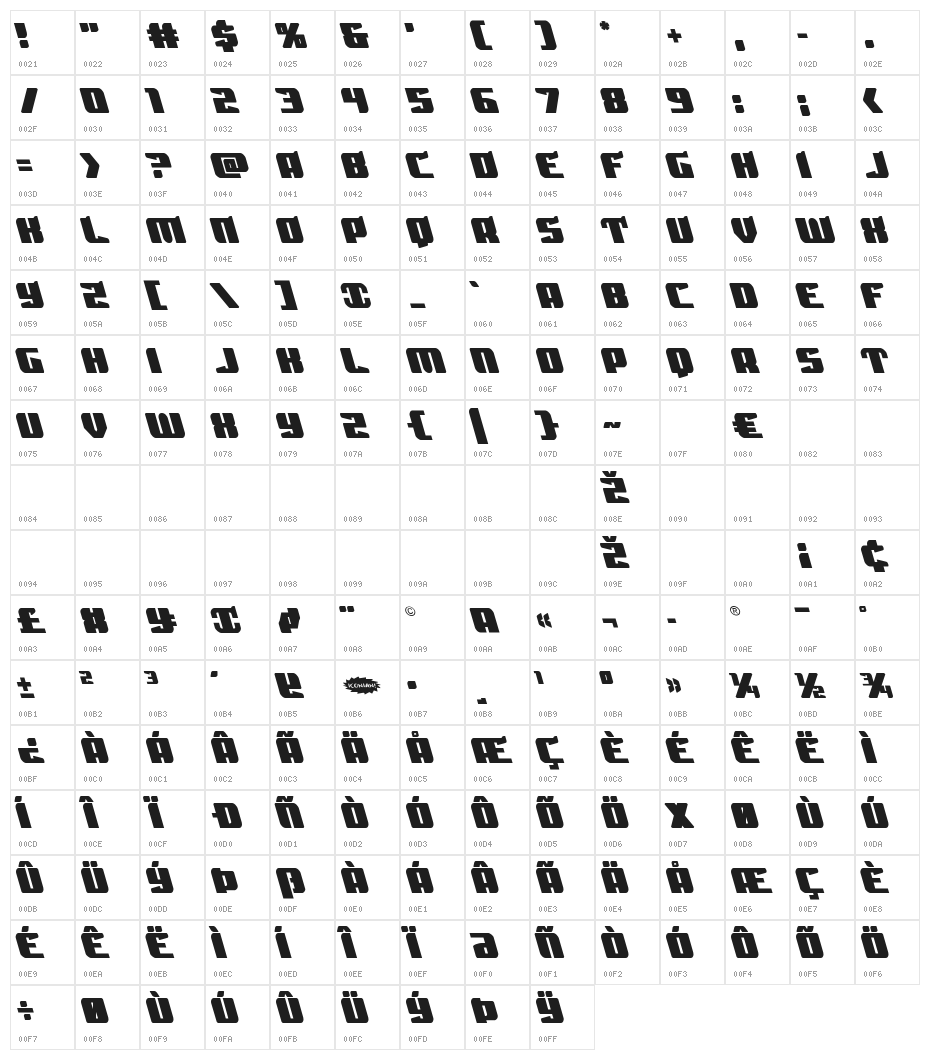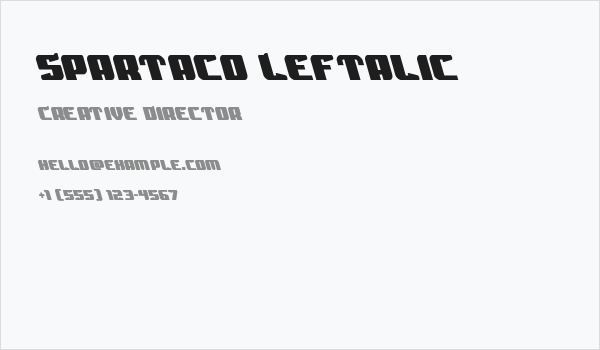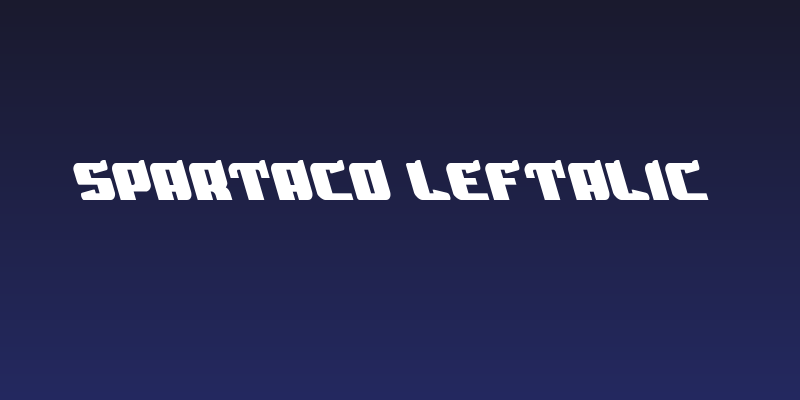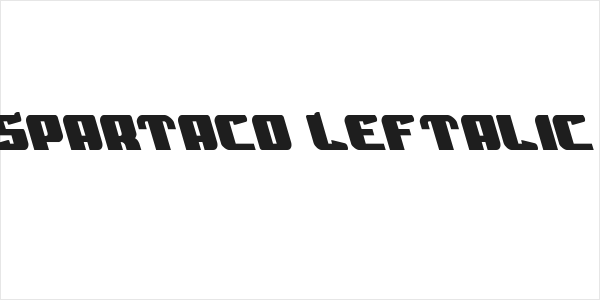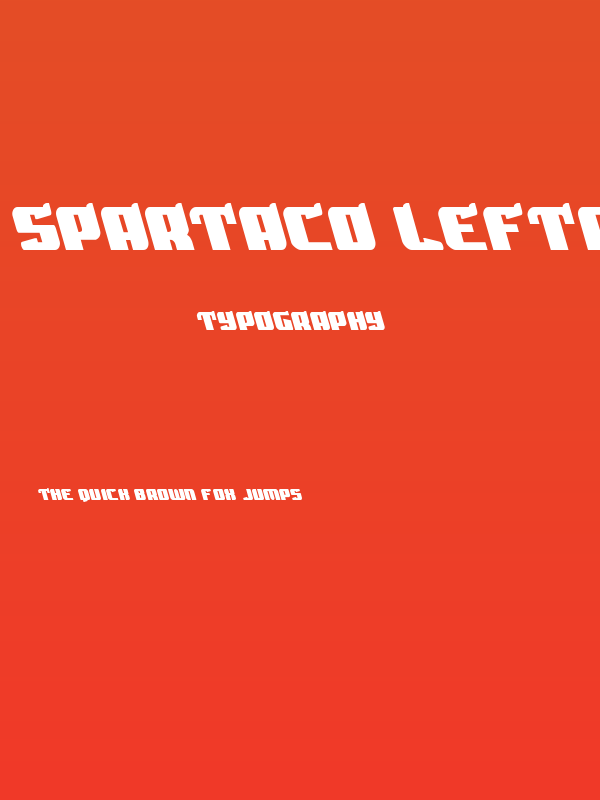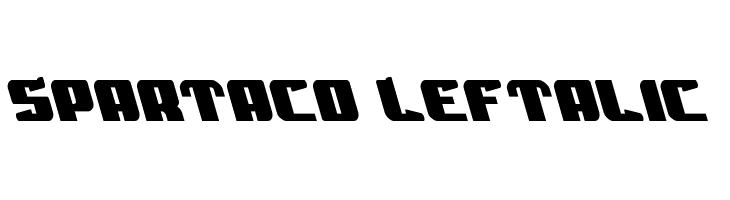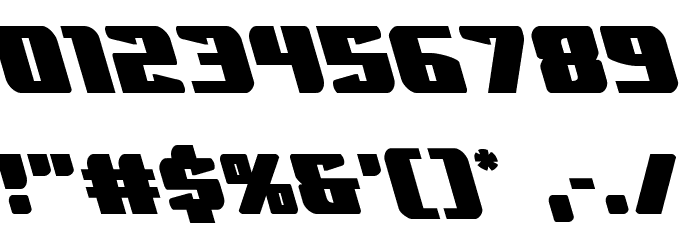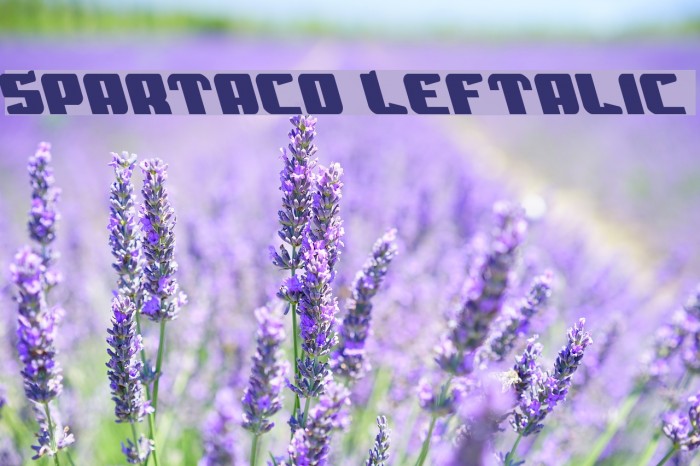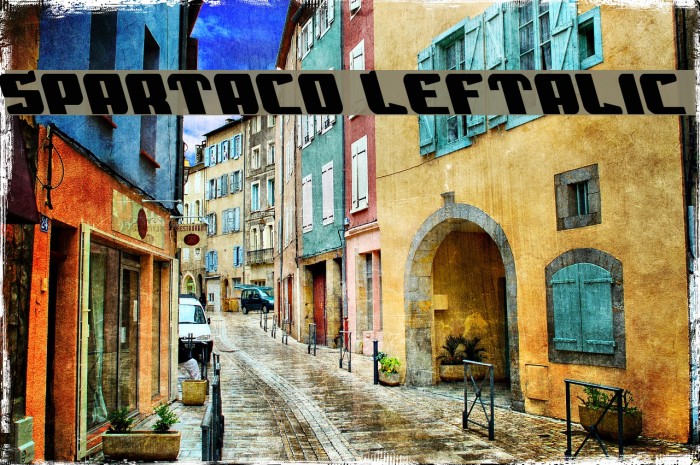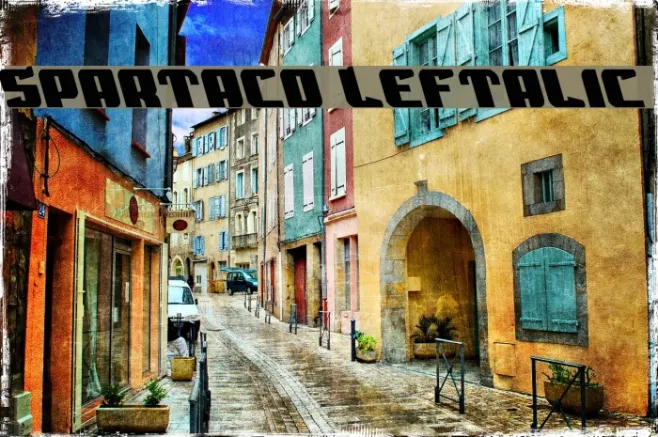
Spartaco Leftalic Font
Spartaco Leftalic Description
This font features a bold and dynamic style with a distinctly angular and geometric design. The characters are heavily slanted, giving a sense of forward motion and energy. The strokes are thick and consistent, creating a strong visual impact. The uppercase and lowercase letters maintain a uniform width, contributing to a cohesive appearance. The numbers and special characters follow the same stylistic approach, ensuring versatility across different uses. The overall design is modern and eye-catching, suitable for projects that require a bold statement.
| Proposed Projects | Ideal for sports branding, dynamic posters, video game titles, and any project needing a bold, energetic typeface. |